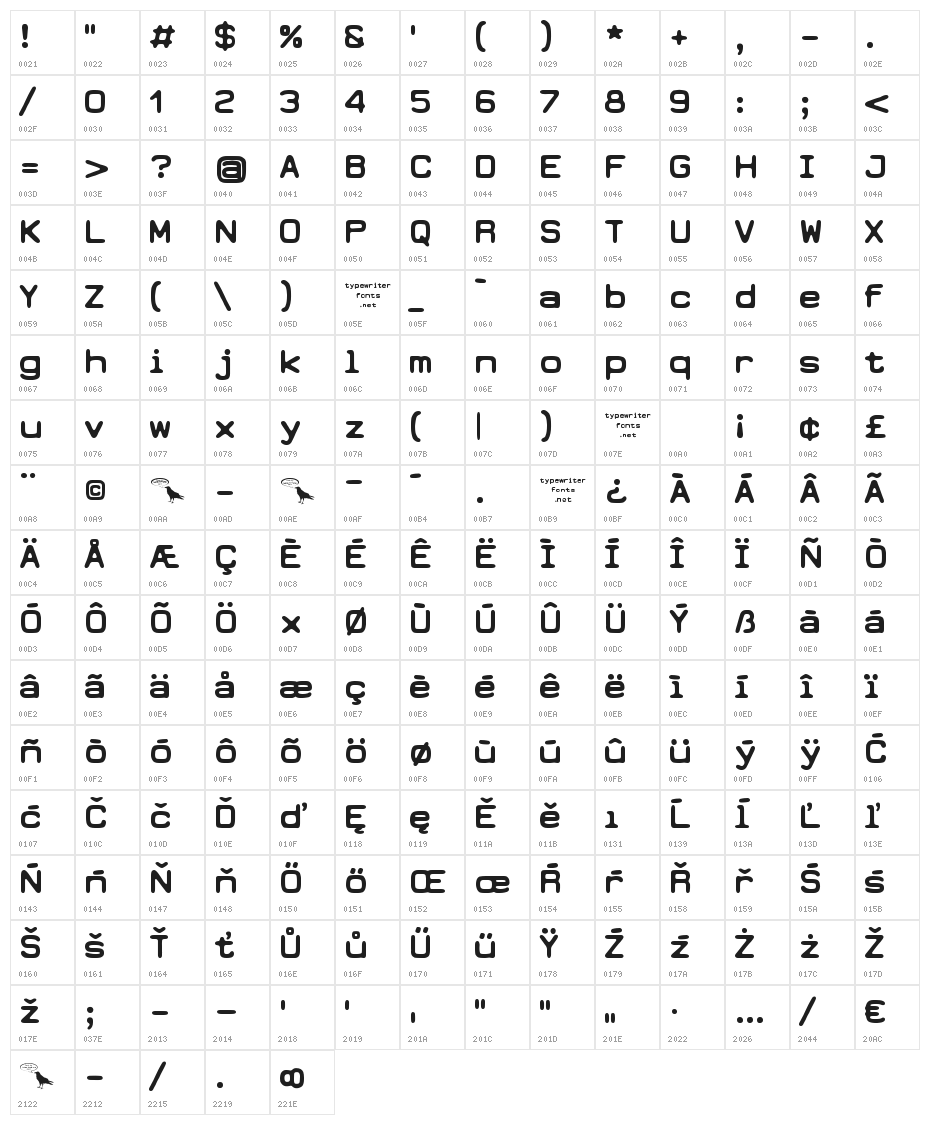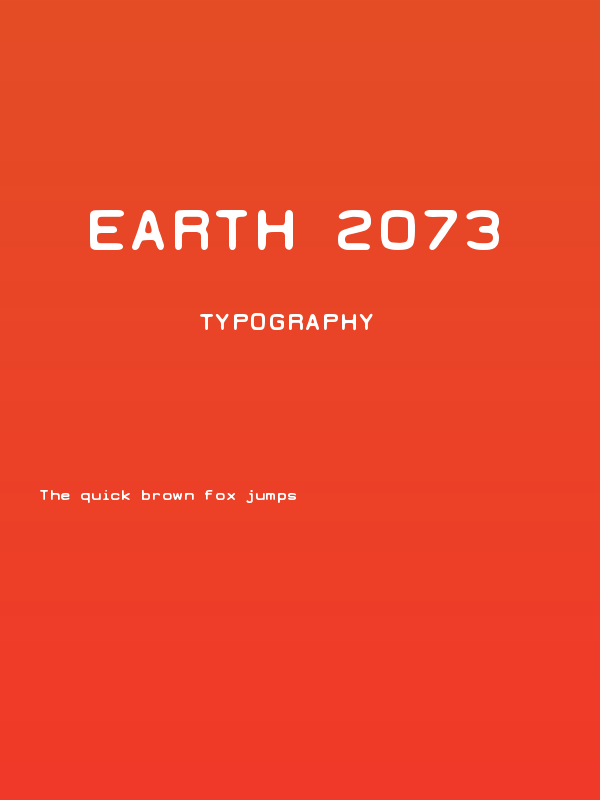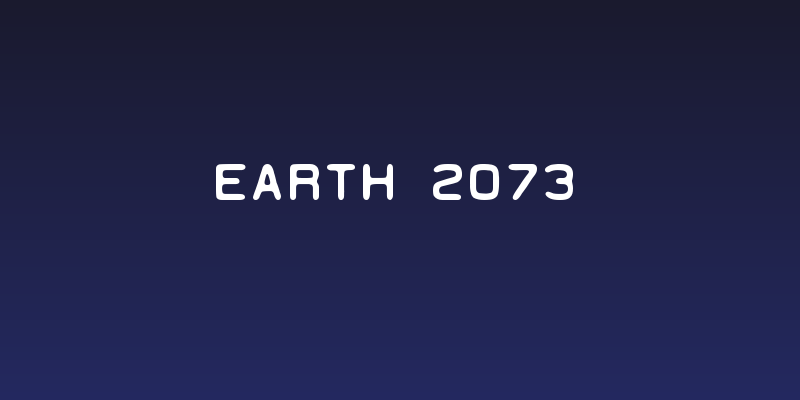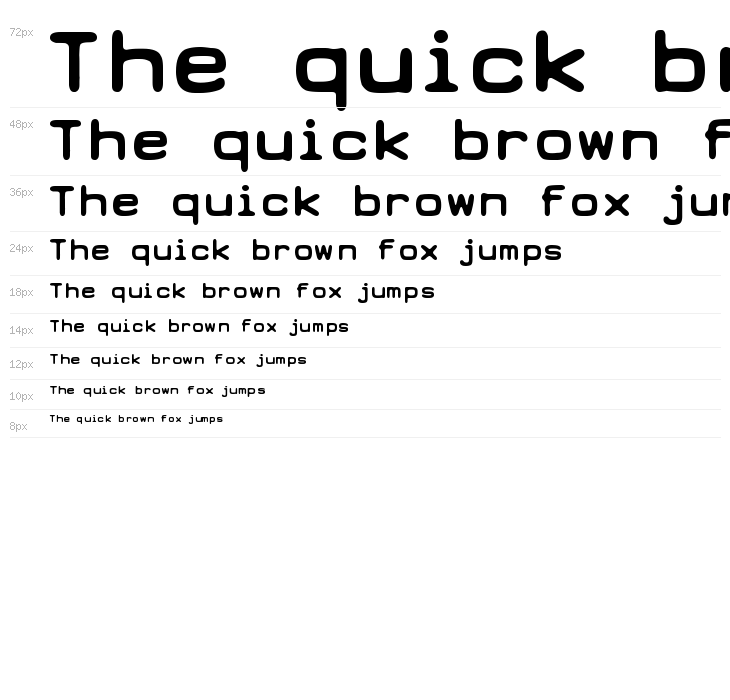
Earth 2073 Font
Earth 2073 Description
This font features a modern, rounded design with a futuristic appeal. The characters are bold and slightly condensed, providing a strong presence while maintaining readability. The rounded edges give it a friendly and approachable look, making it suitable for various design contexts. The numerals and special characters are consistent with the overall style, ensuring a cohesive appearance across all text elements. This font is versatile, fitting well in both digital and print media, and can be used effectively in branding, advertising, and user interfaces.
Use CaseHeadlines, Logos, User Interfaces
Proposed ProjectsIdeal for branding, advertising, user interfaces, and digital media projects.